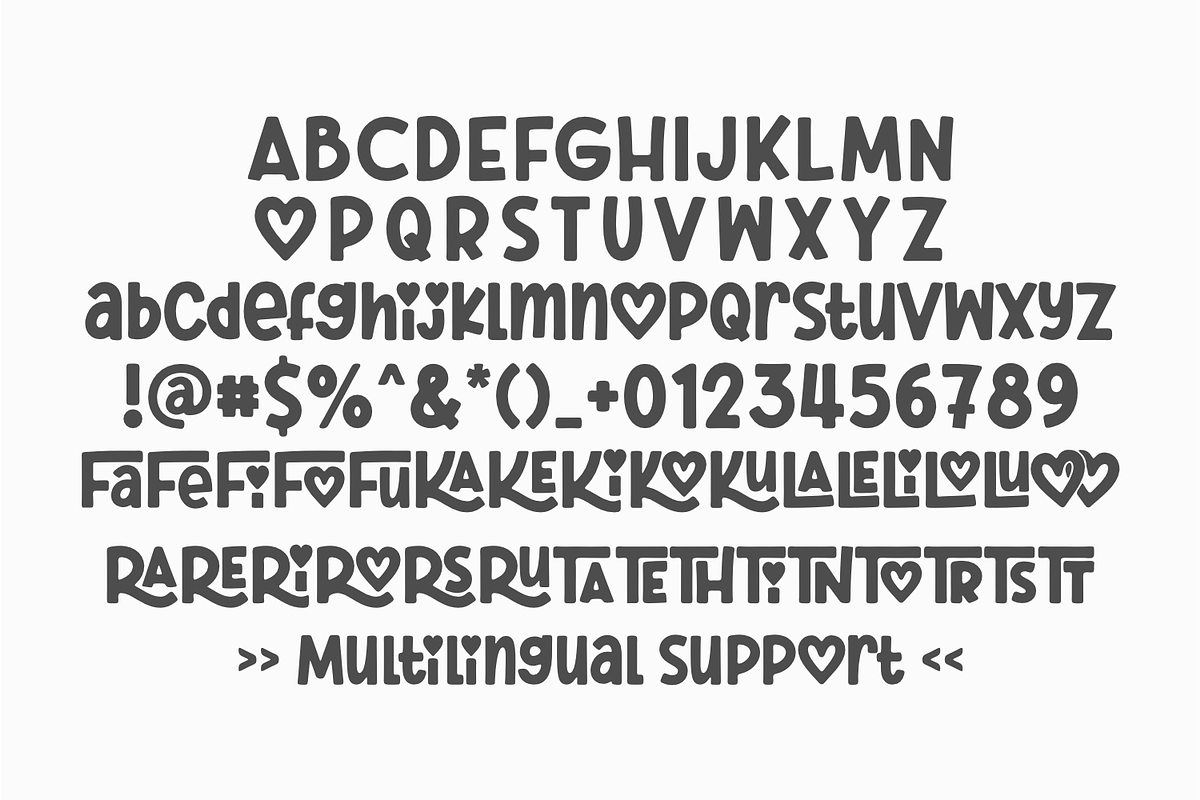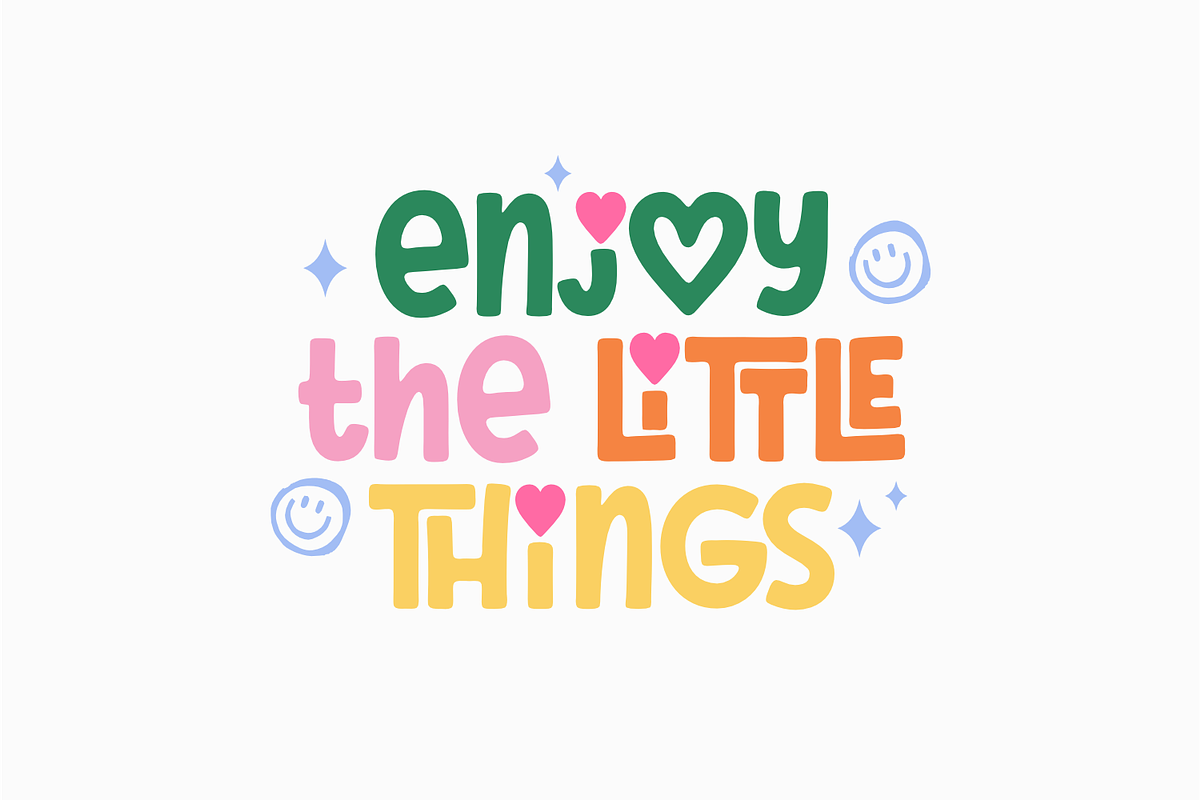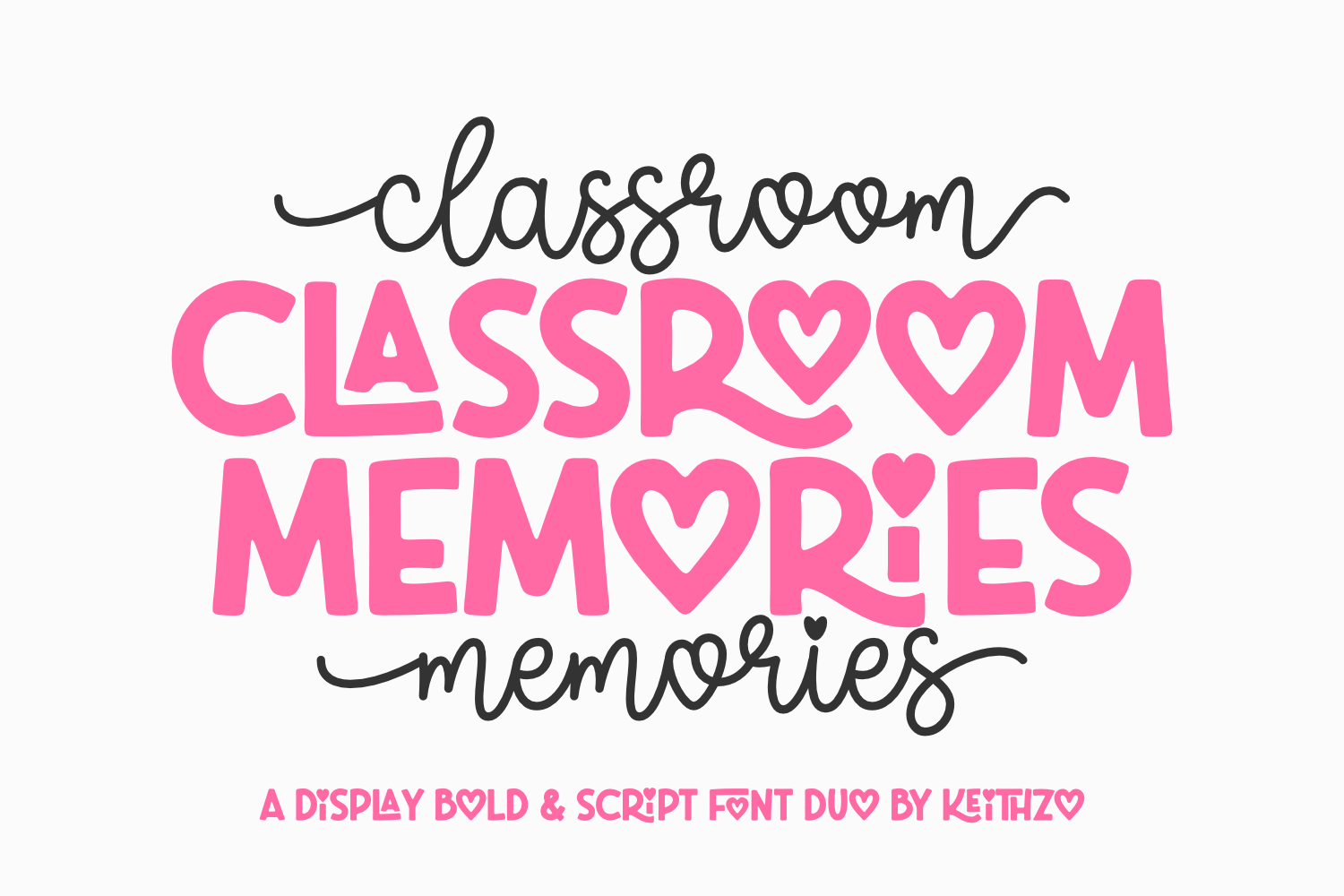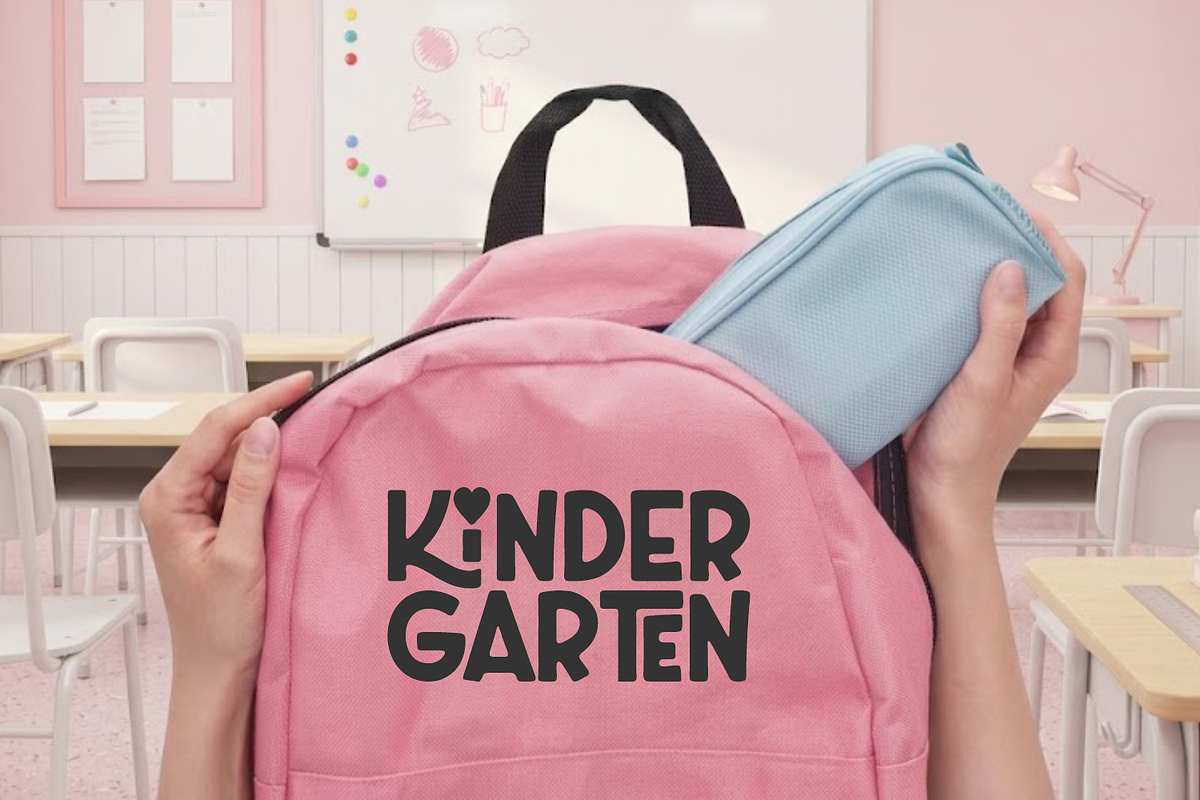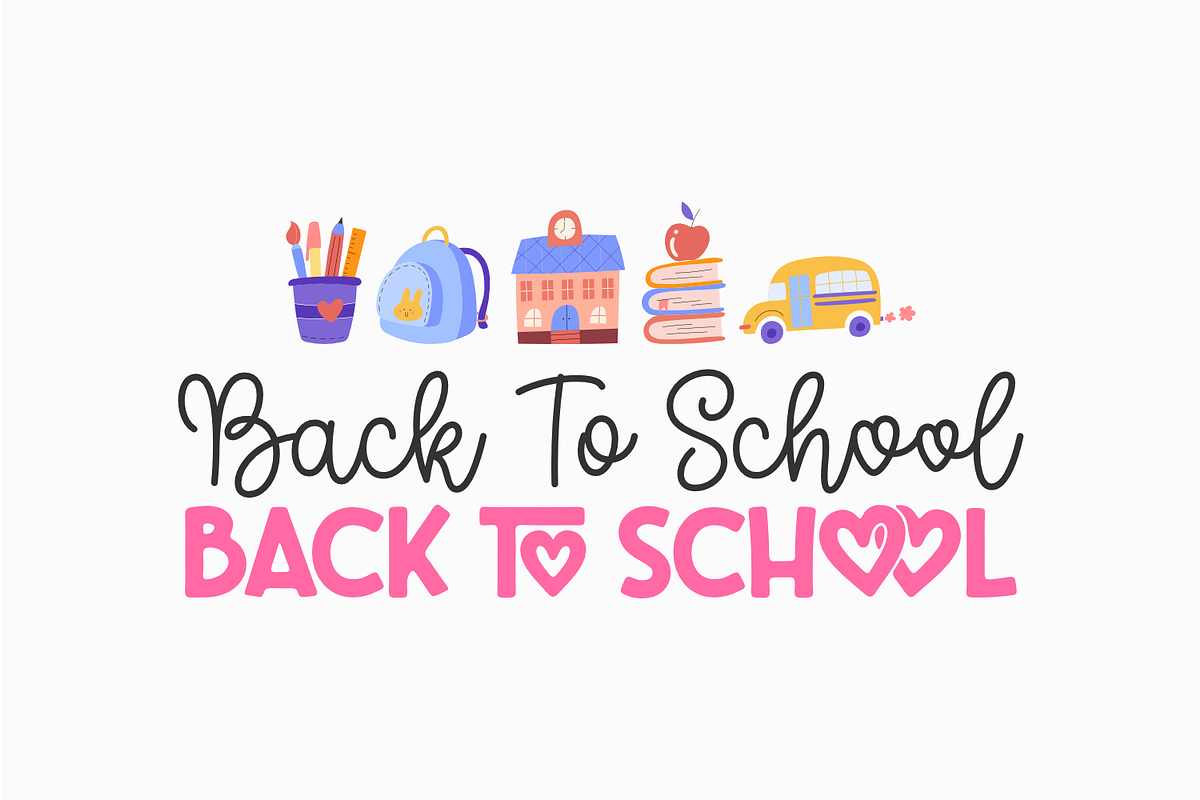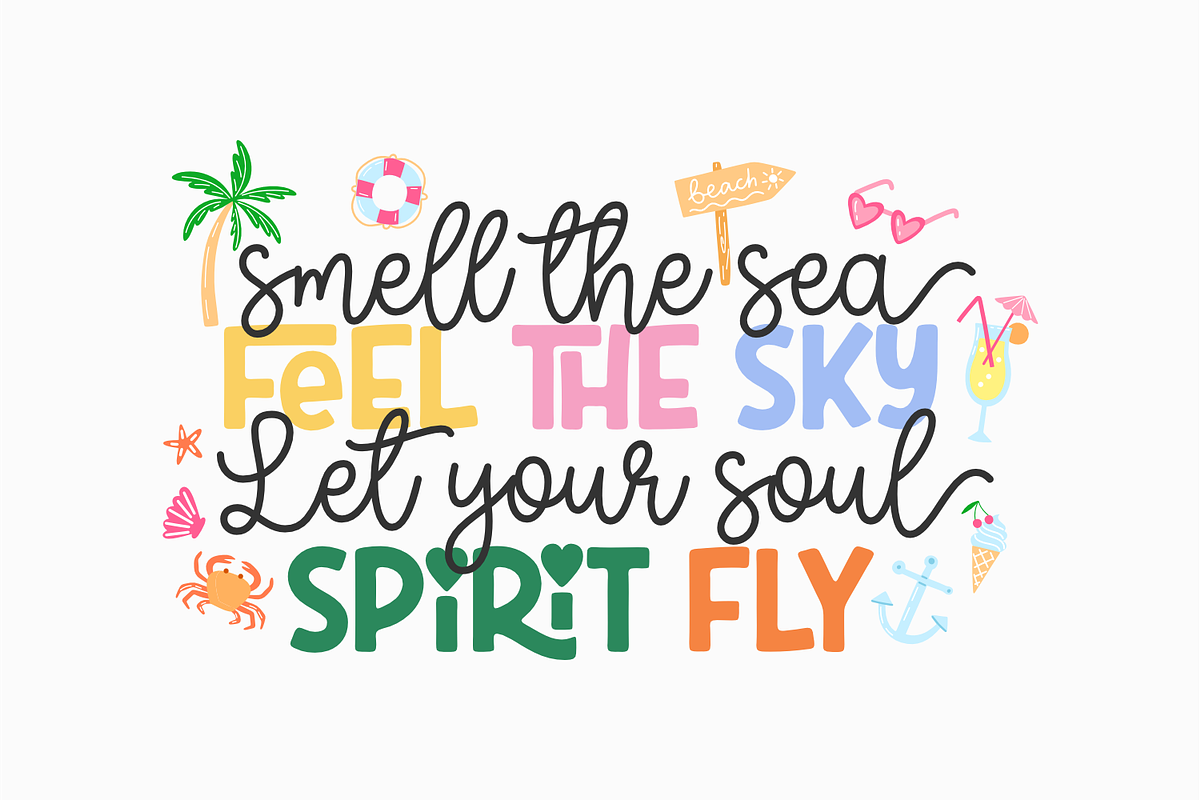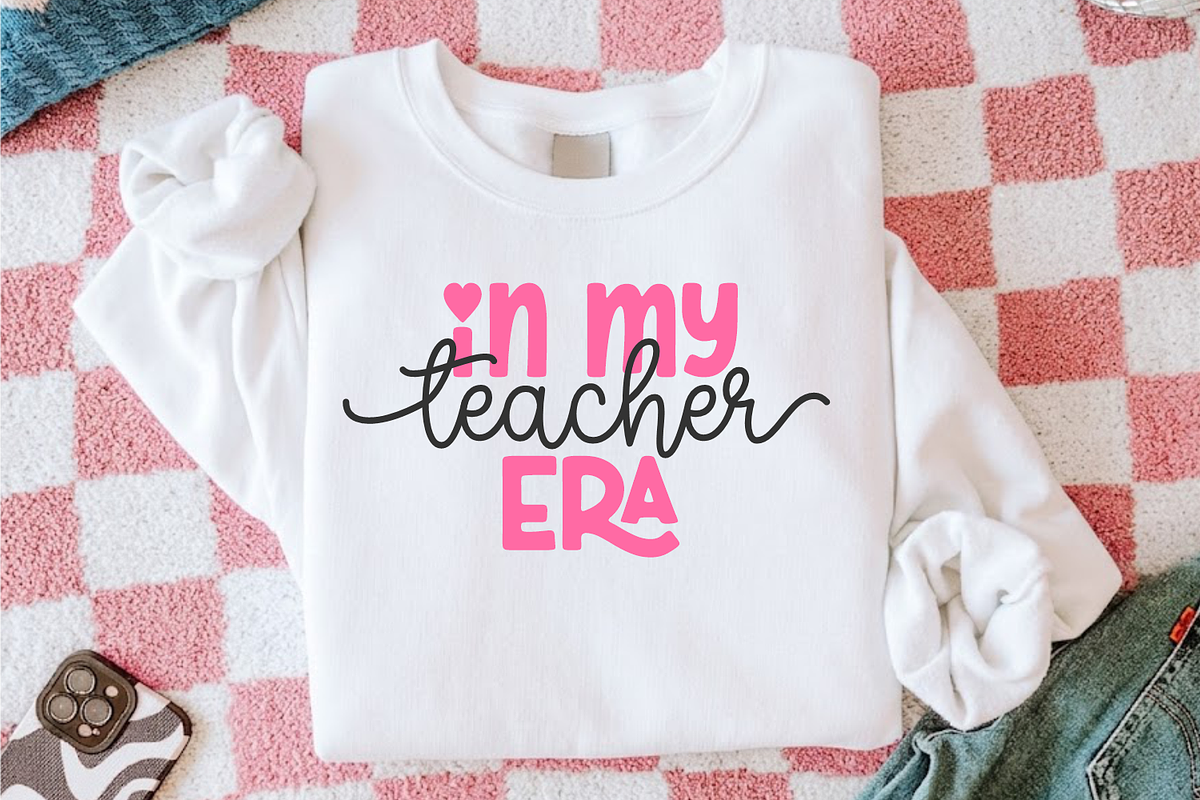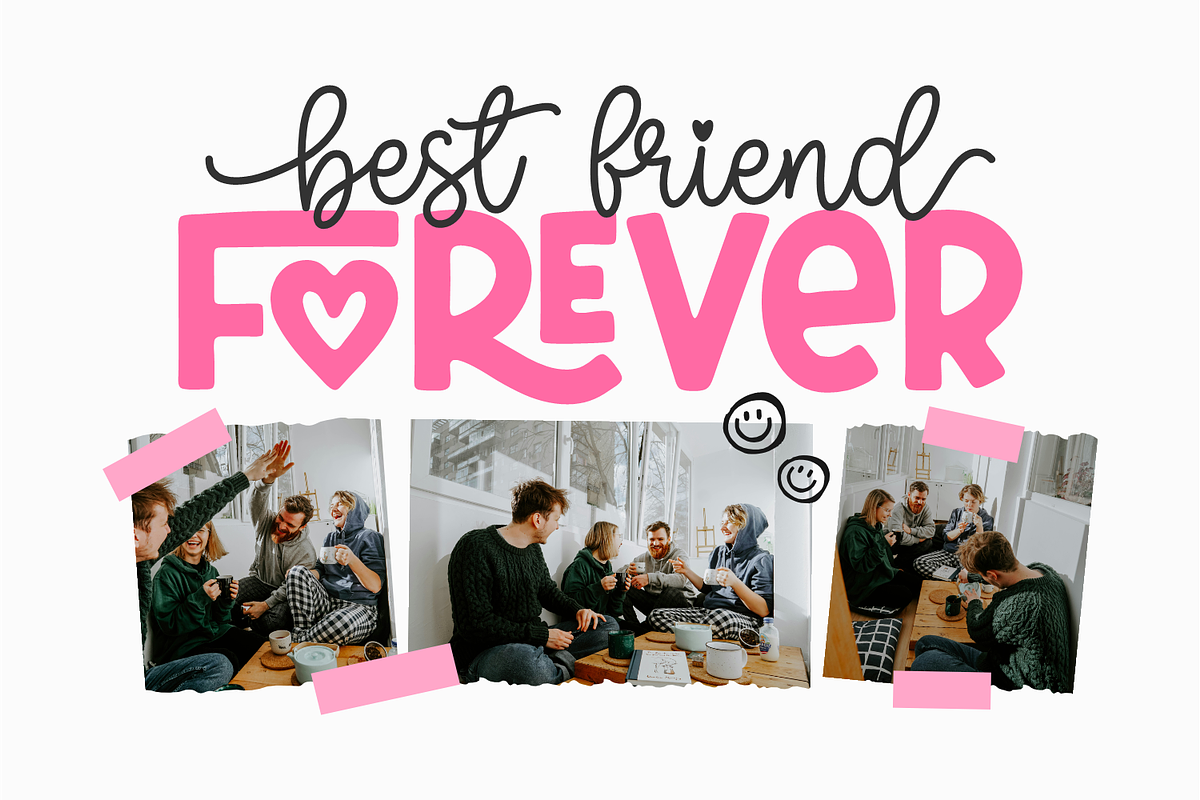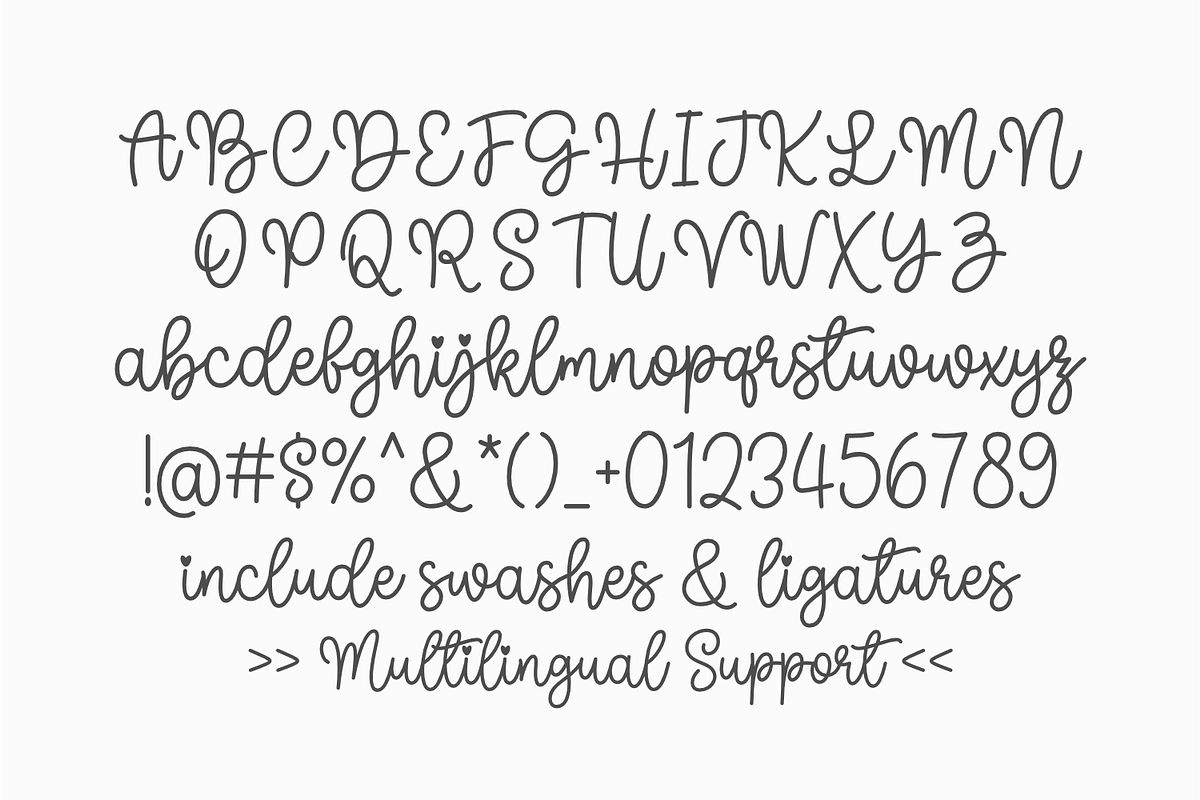
Classroom Memories - Font Duo
Classroom Memories A Whimsical & Charming Handwritten fonts Capture the warmth of pure nostalgia and playful creativity with Classroom Memories, a beautifully crafted handwritten fonts designed to bring a friendly, human touch to your designs. With its neat, organic strokes and cheerful letterforms, this fonts effortlessly recreates the comfort of handwritten notes, school day journals, and heartfelt sketches.
The structure of Classroom Memories balances casual warmth with excellent structure, making it highly versatile for creators who want an authentic, hand-made aesthetic without sacrificing professional quality.
Classroom Memories is the ideal asset for designers looking to infuse their work with joy, comfort, and a touch of sweet nostalgia. Enhance your typography collection today with a versatile fonts that speaks straight from the heart.